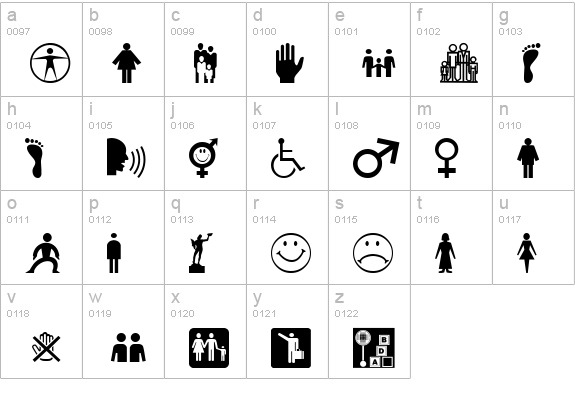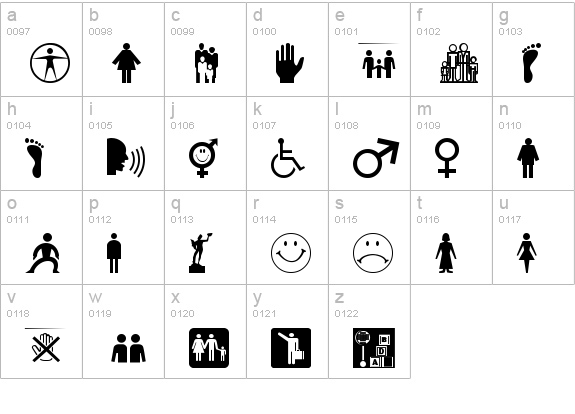
wmpeople1 Font Details
Introducing wmpeople1 font - a modern and stylish typeface that is perfect for various design projects. With its clean lines and contemporary aesthetic, wmpeople1 font exudes a sense of sophistication and elegance. This versatile font is ideal for branding, logos, headlines, and more. What sets wmpeople1 font apart is that it is available for free download at FontsMarket.com. This means that you can easily access and use this beautiful font without any cost. Whether you're a professional designer or a hobbyist looking to elevate your projects, wmpeople1 font is a fantastic choice that won't break the bank. Download wmpeople1 font today and add a touch of class to your designs with this stunning typeface.